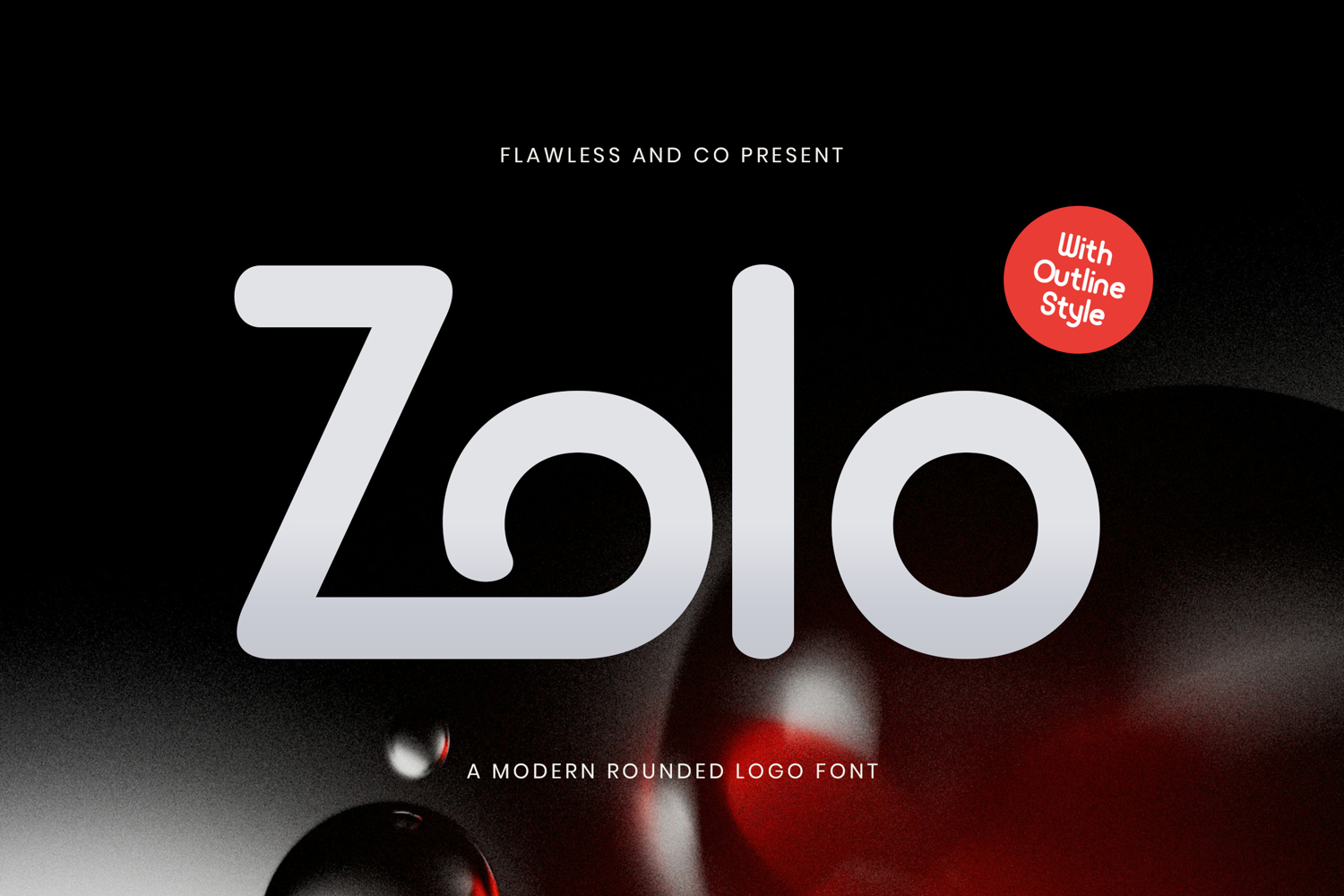
Zolo
ZOLO
ZOLO – A Modern Rounded Logo Font
ZOLO is a sleek and minimal rounded typeface designed to make your brand shine. With its smooth curves and clean structure, ZOLO brings a contemporary and friendly character to logos, tech products, branding assets, and display layouts. It comes with two distinctive styles: regular and outline, giving you flexibility in building dynamic visual identities. Whether you're crafting a futuristic logo or an approachable tech brand, ZOLO delivers clarity and elegance in one modern package.
• Alternates & Ligatures
Who Should Use ZOLO?
ZOLO is made for designers, creatives, and branding experts who want a modern, rounded, and professional look in their typography. If you're building brand visuals that need to feel clean, tech-savvy, and approachable — ZOLO is the perfect fit.Whether you're working on a bold startup identity, a digital platform, or sleek product packaging, ZOLO helps your message feel smart, stylish, and memorable.
A Must-Have Font for Brand and Logo Creators and Designers
ZOLO is a must-have tool in every designer’s kit — especially for those focused on branding, logos, and visual identity. Its rounded, modern design makes it highly versatile, adaptable to tech startups, creative agencies, fashion brands, and digital products. With its clean structure and soft curves, ZOLO delivers a unique blend of professionalism and friendliness, helping your brand stand out with clarity and style. Whether you're launching a new project or refreshing an existing brand, ZOLO brings bold personality and modern elegance to the table.
Why Choose ZOLO for Brand and Logo Projects?
ZOLO is crafted with modern branding in mind — a sleek rounded logo font that blends minimalism with character. Its clean geometry and smooth curves make it perfect for creating distinctive wordmarks, tech-forward brand identities, and memorable logos that feel both futuristic and approachable. Whether you're designing for startups, creative studios, digital platforms, or fashion-forward labels, ZOLO gives your brand a polished yet playful voice. Plus, with its solid and outline styles, you have flexible options to explore bold or subtle expressions.
Suitable For:
• Logo design & brand identity
• Tech startups & digital platforms
• Modern packaging & product labels
• Creative agencies & media companies
• Fashion brands & lifestyle products
• App interfaces & UI/UX design
• Marketing materials & social media graphics
• Futuristic posters & bold typographic layouts